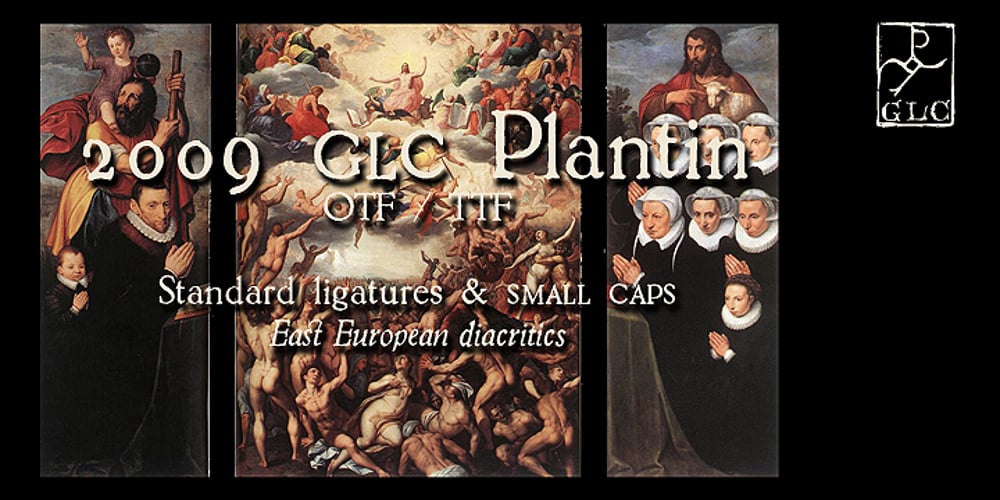
2009 GLC Plantin Font Family was designed by published by GLC. 2009 GLC Plantin contains 2 styles and family package options. We created this family in an attempt to submit a Plantin’s font pattern overview. So it is not a real historical font, but a “looking like”. We have added the special East European diacritics (Czech, Hungarian, Romanian, Croatian, Slovak, Slovenian, Sorbian ) and some other features. Our Italic style is resulting from a choice through the numerous possibilities.